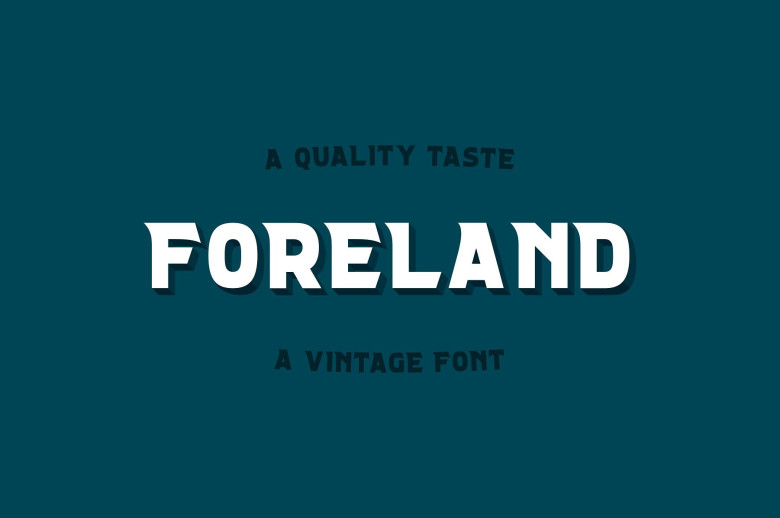
Foreland Vintage Font
continues to be a design come from Andika Fez designer. Use it for your new project, your customers will feel satisfied. Introducing Foreland. Foreland Font a tasteful Typeface that alows you to explore every single design style you want such as vintage design, modern design style, logo design, typography, product package, poster, campaign and many more.